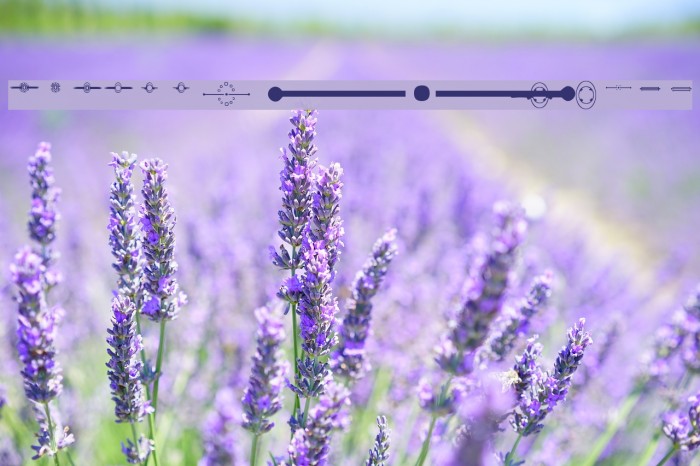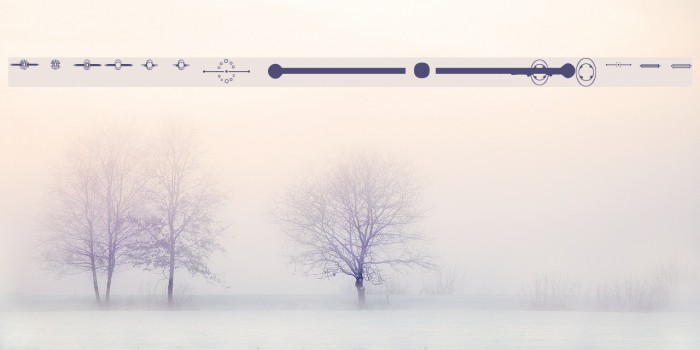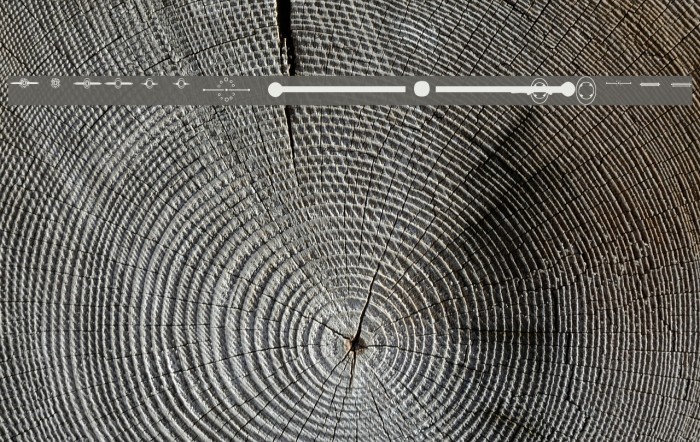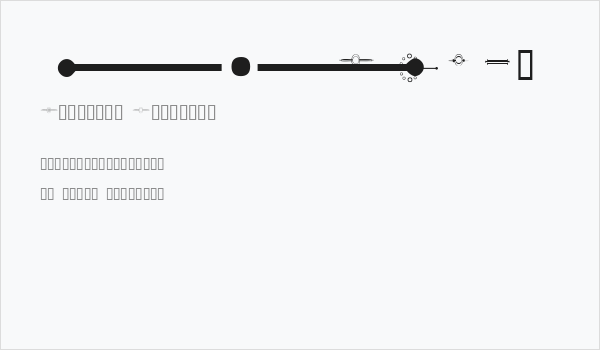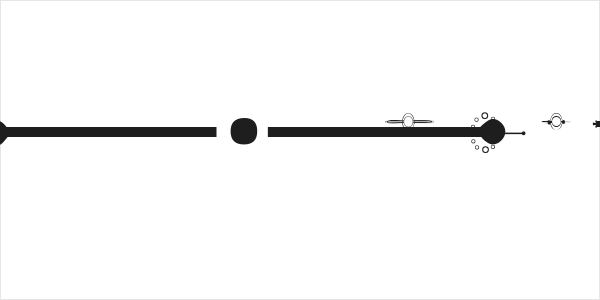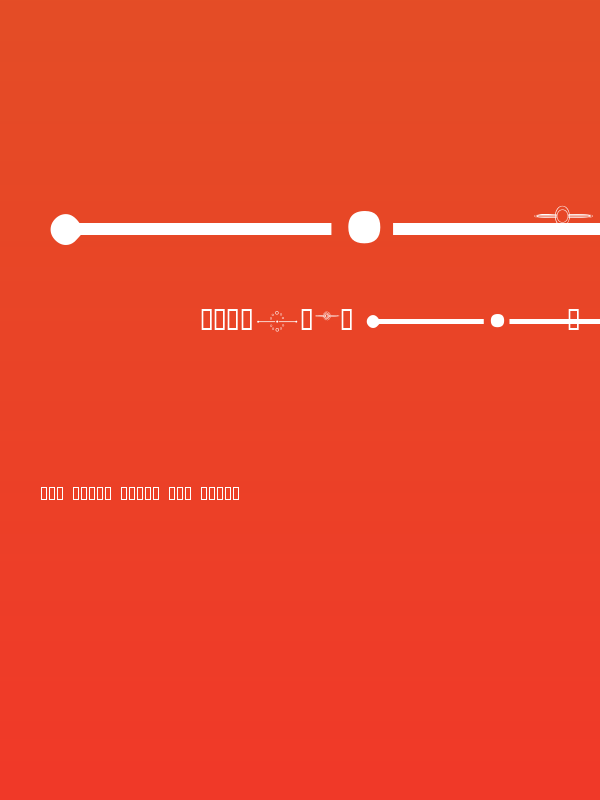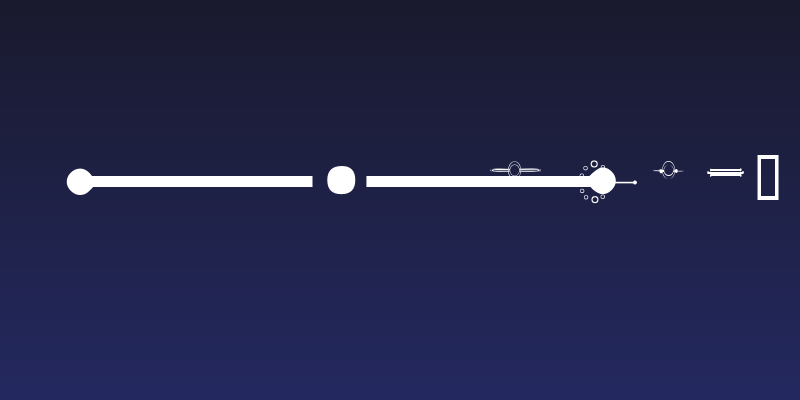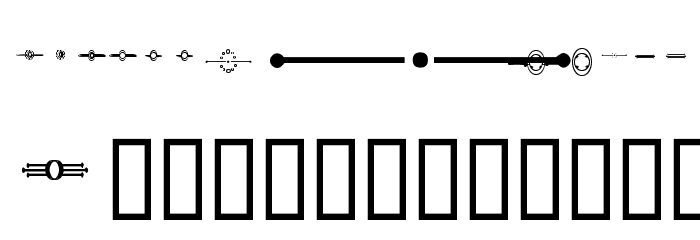
HDGEM3 Font
HDGEM3 Description
This design features a series of intricate geometric patterns and symbols rather than a traditional font. The elements include circular motifs, lines, and dots, creating a visually engaging and complex arrangement. The design is symmetrical and balanced, with a focus on precision and detail. The use of bold lines and contrasting shapes gives it a striking appearance, suitable for decorative purposes. The overall style is modern and abstract, making it ideal for artistic projects or as a graphic element in design work.
| Overall Style | Modern, Abstract |
| Use Case | Artistic designs, Graphic elements |
| Proposed Projects | Ideal for use in modern art pieces, graphic design elements, or decorative motifs in digital and print media. |